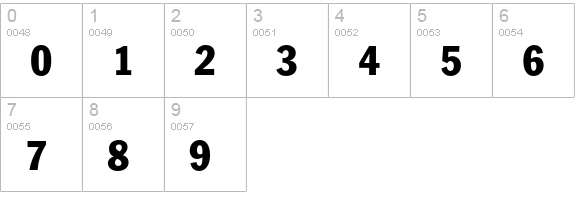
Franklin Gothic Condensed is a distinctive, condensed-width variant in the Franklin typeface family \xE2\x80\x94 well suited to design and typography projects.
Franklin Gothic Condensed font is a sleek and modern typeface that exudes a sense of sophistication and professionalism. With its condensed letterforms, this font is perfect for creating sleek designs that demand attention. The sharp lines and clean geometry of Franklin Gothic Condensed make it ideal for headlines, titles, and branding projects. The best part is that Franklin Gothic Condensed font is available for free download at FontsMarket.com. Whether you're a designer looking to add a touch of elegance to your projects or a business owner in need of a stylish font for your marketing materials, Franklin Gothic Condensed has you covered. Don't miss out on this fantastic opportunity to enhance your designs with this versatile and eye-catching font. Download it today and take your typography to the next level!